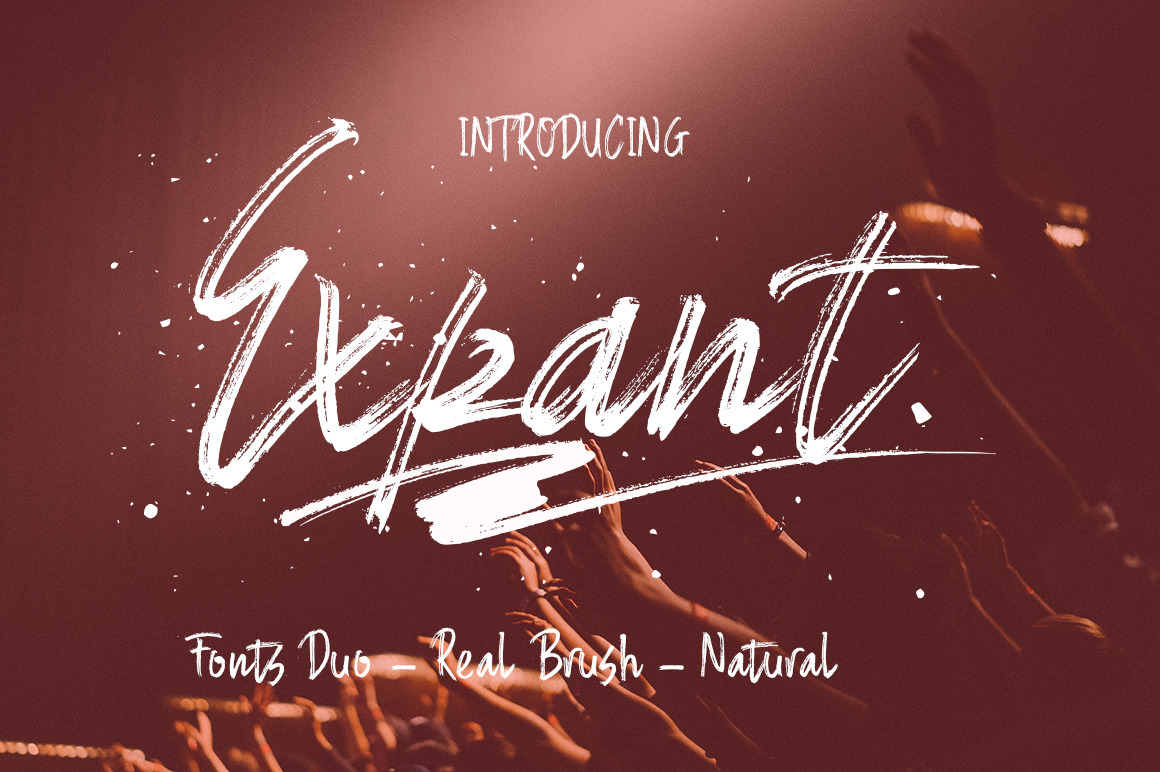
Expant (Fonts Duo+Swash)
INTRODUCING
Expant (Fonts Duo + Swash)
it is a very original handiwork looks like real handwriting, by generating regular curved brush. is the font style handmade and then live trace to have unique. the writing style is very Natural.
The Features of this fonts is;
- Standart ligatures